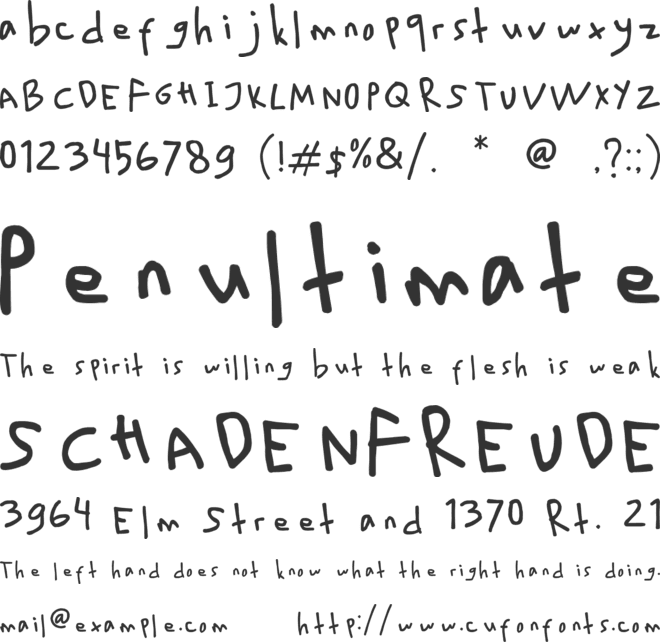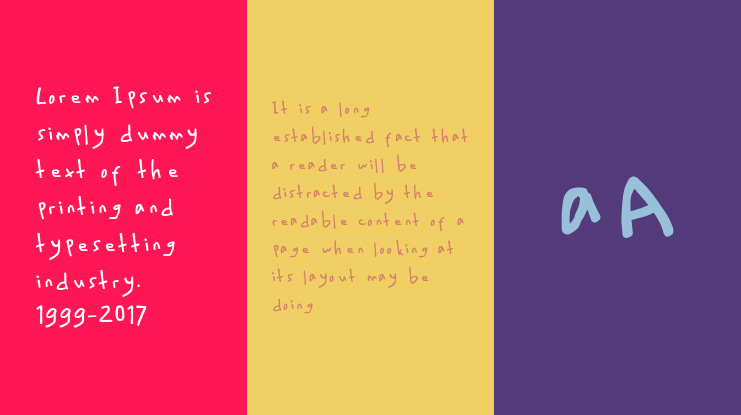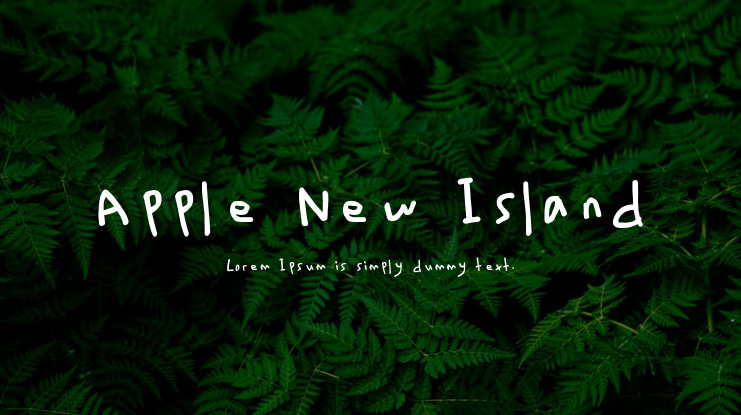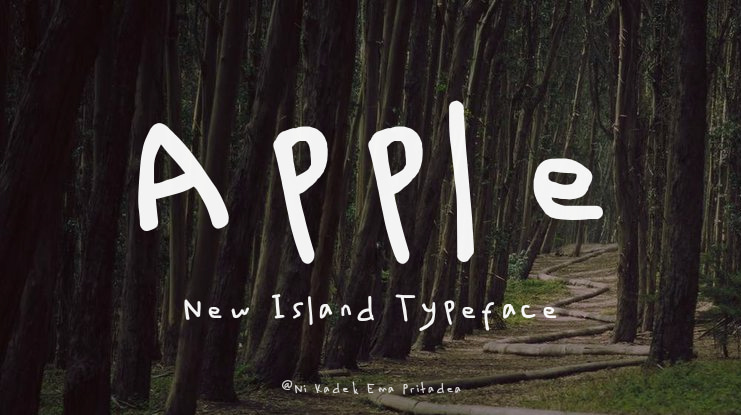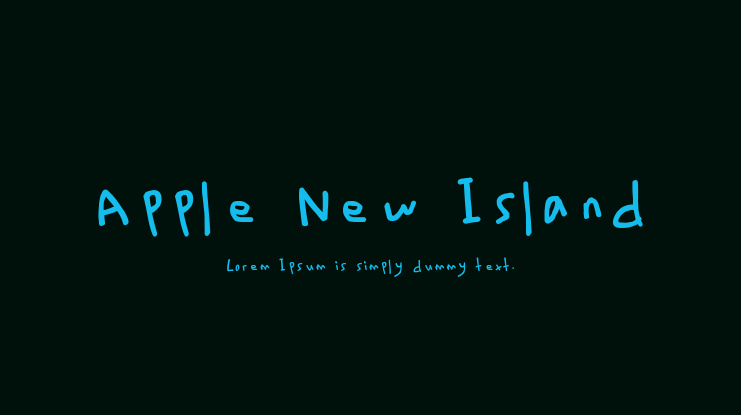
Apple New Island Font
Ni Kadek Ema Pritadea
Introducing Apple New Island, a charming handwritten sans serif font that brings a touch of whimsical elegance to your designs. Embracing the naïve yet aesthetic appeal of hand-drawn lettering, Apple New Island is the perfect blend of casual and sophisticated. This unique font captures the essence of spontaneity and creativity, making it ideal for a wide range of applications from personal projects to professional branding.